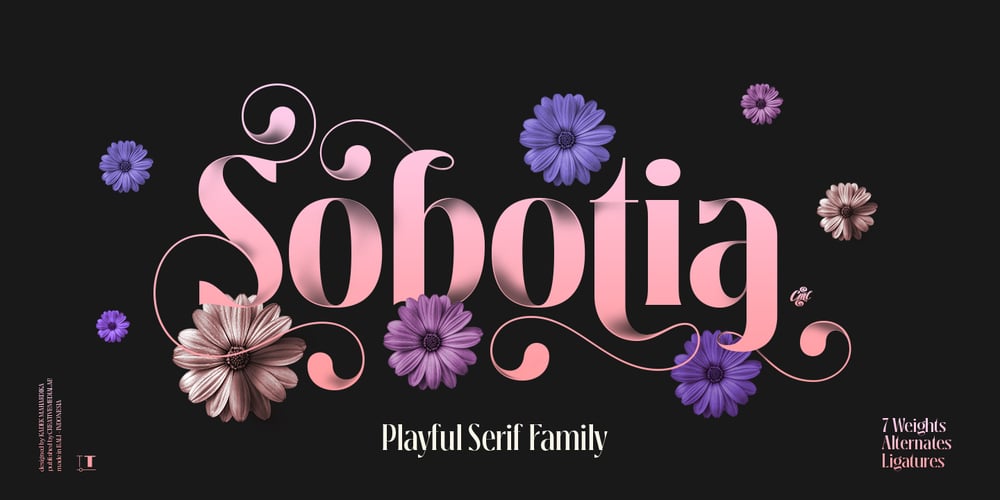
Sobotia Font Family was designed by Kadek Mahardika and published by Creativemedialab. Sobotia contains 7 styles and family package options. sobotia is inspired by the beauty of flowers that fall in autumn. The curve of the terminal balls that decorates the word looks so beautiful, pleasing to the eye. Sobotia is a romantic serif with a wide selection of alternative letters, offering a variety of alternative weights and options that will help you find the perfect typeface for your project.